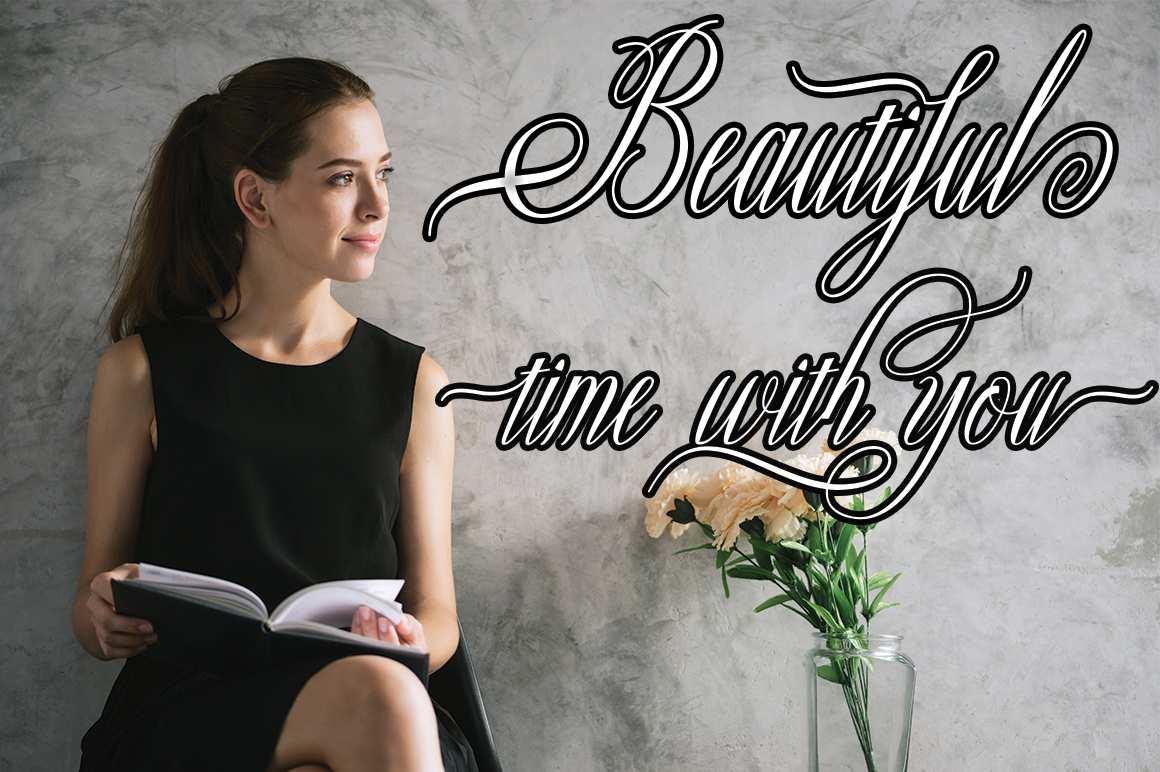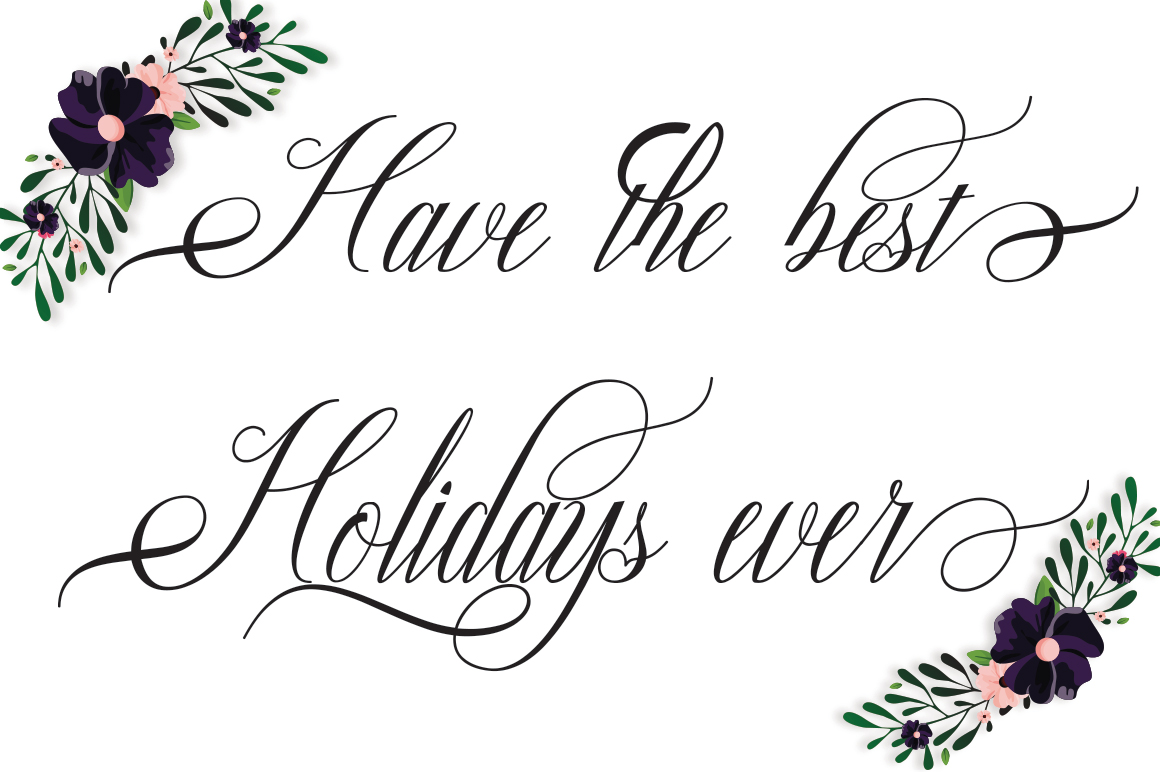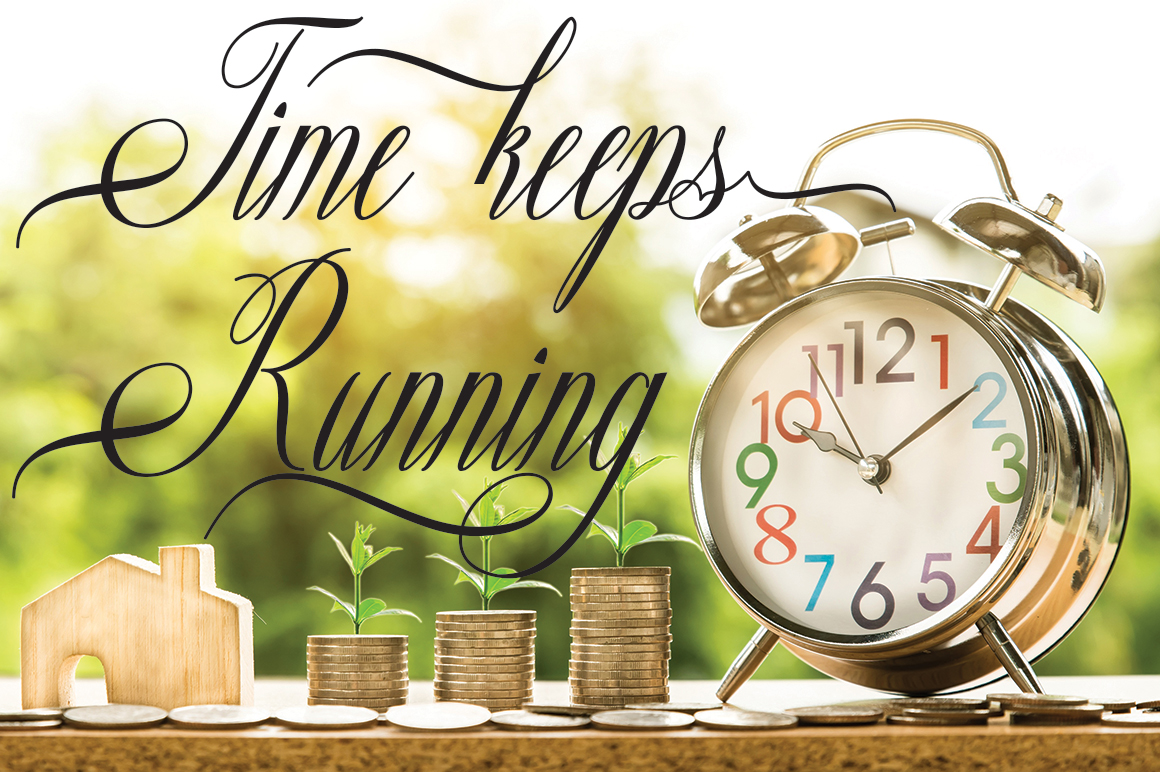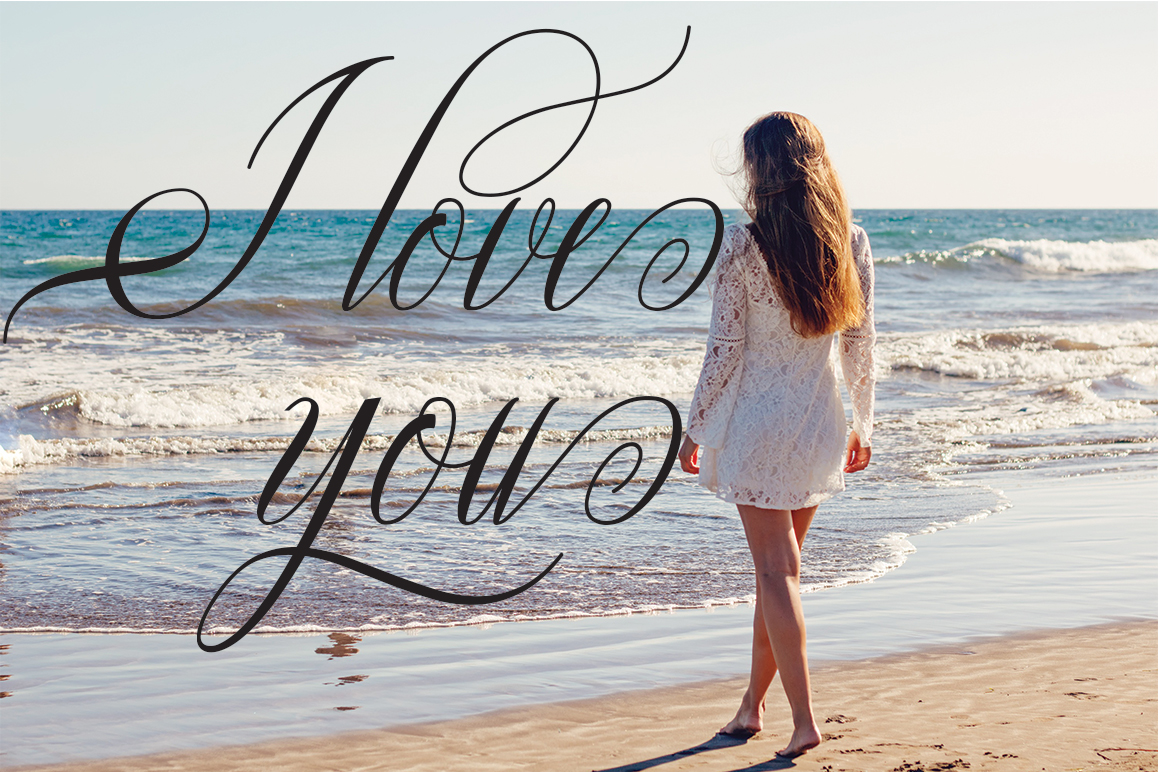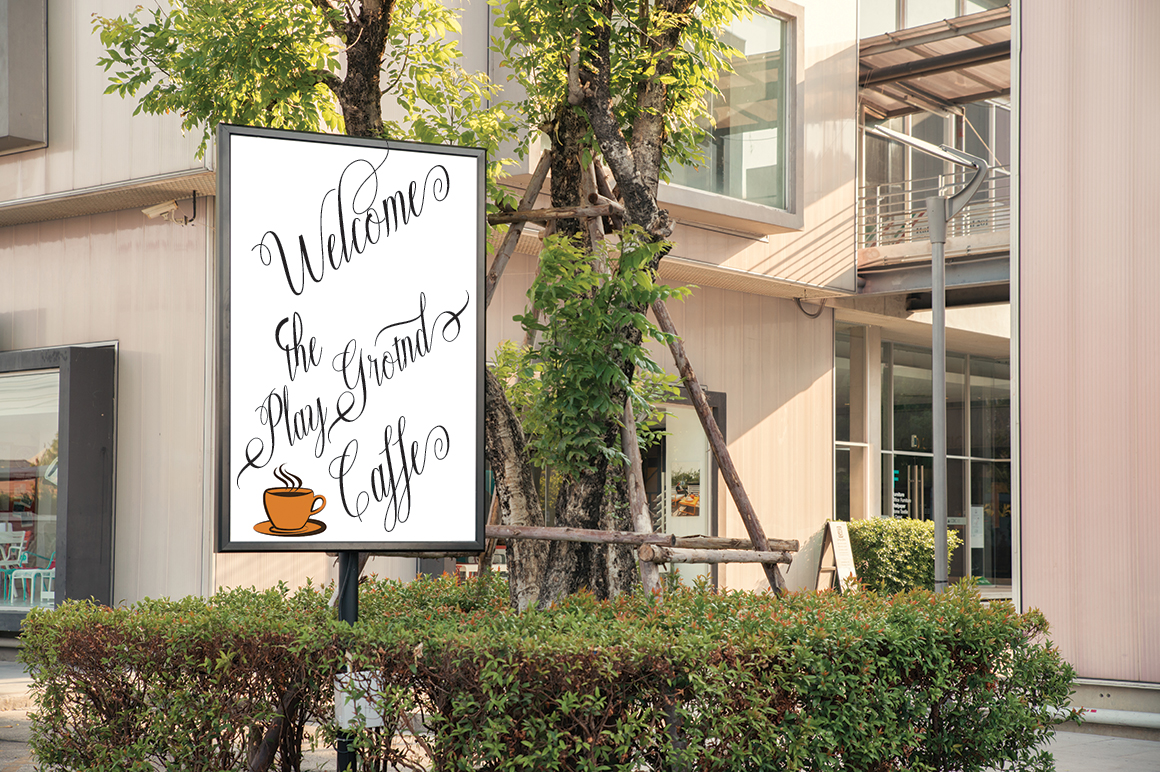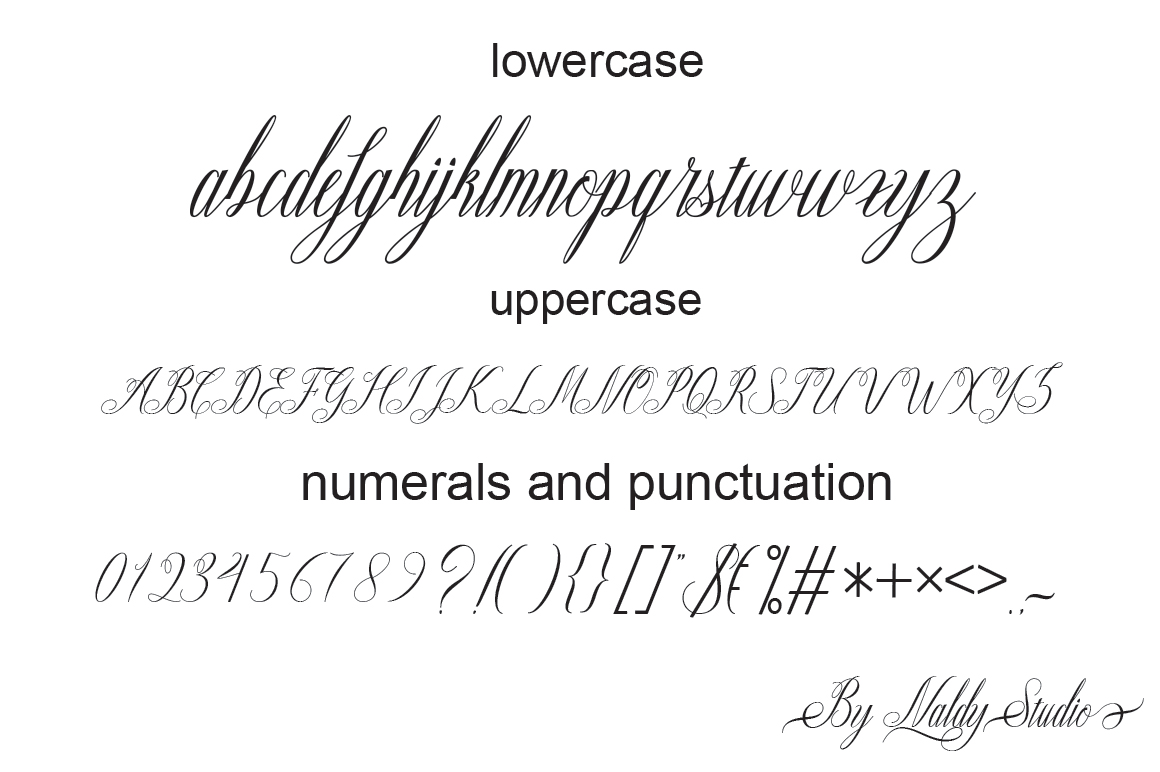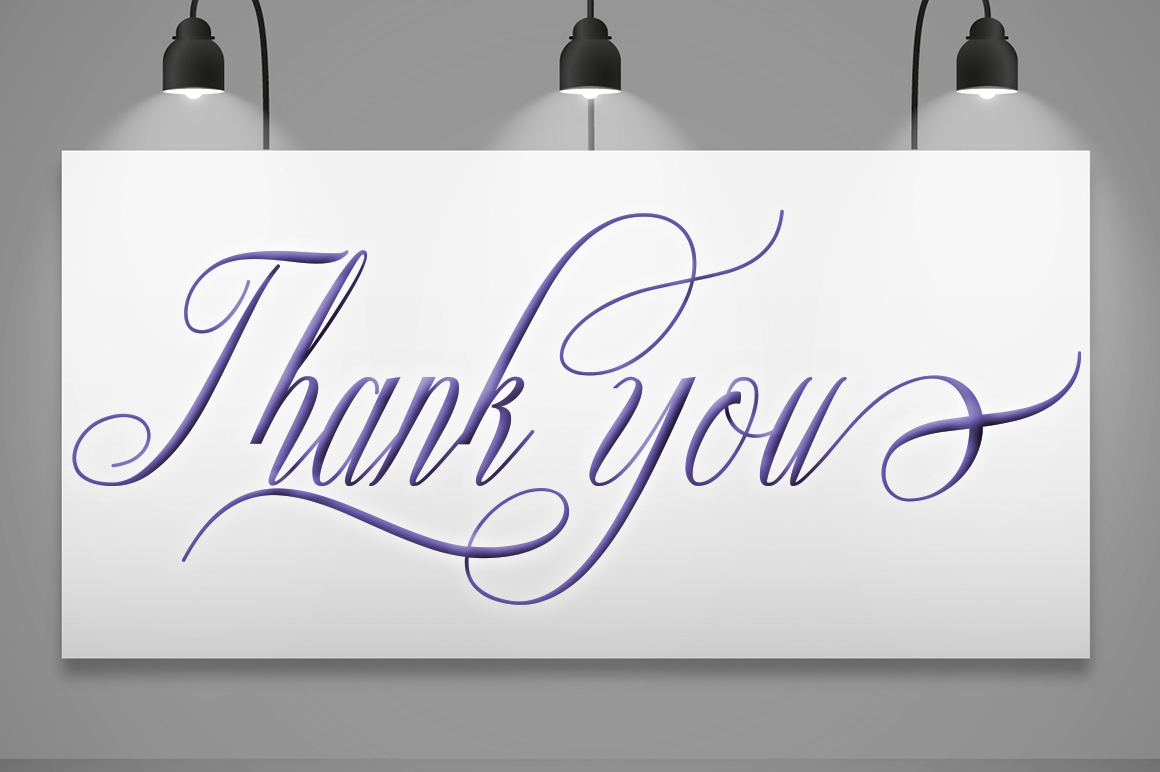
Ganitalia Font
About Ganitalia Font
Ganitalia is a stunning and ornate script font with tons of stylistic alternates,making this font perfect for high impact designs. This font is a great way to give your designs a luxurious, calligraphy feel.